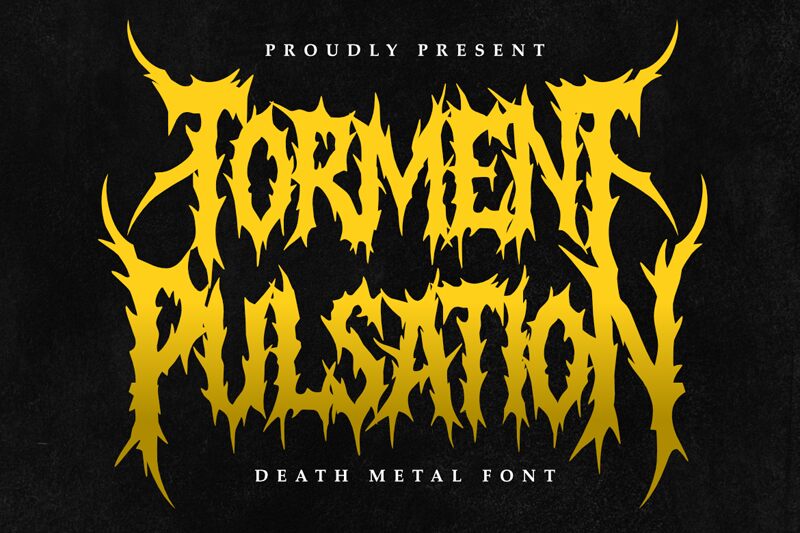
Torment Pulsation font, a free blackletter font by Muhammad Yafinuha, takes inspiration from Gothic influences to create a truly intense display typeface. Its rugged and chaotic appearance carries a heavy metal aesthetic and a dark tone that’s bound to leave a strong visual impact. Although the style letters can embrace classical gothic influences, each character of this font presents a dramatic touch that evokes an aggressive feel. The edgy style of the letters makes this font ideal for intense projects where you aim to capture the attention of readers on the first look.
When it comes to use cases, Torment Pulsation is a font created specifically for loud applications. Place it on dark or rocky album covers, gig advertising posters, streetwear pieces, or any similar project. Its bold yet detailed letter borders and chaotic style can make it a perfect addition to your design tools in typography-centered design projects where you'd like to use it in small doses to punctuate ideas and not as body text.